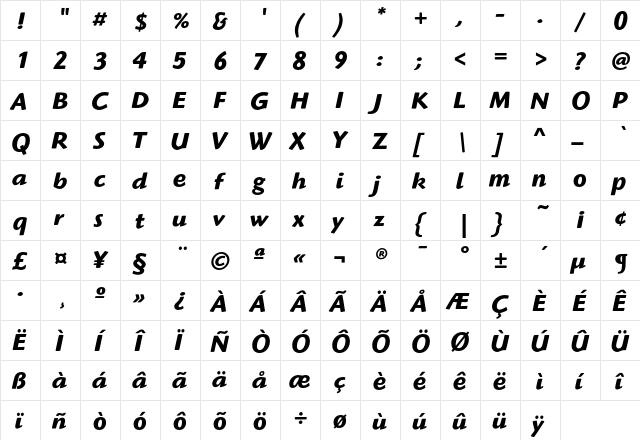
HighlanderEF BoldItalic Font Preview
Design Context for HighlanderEF Typeface
HighlanderEF offers clean, dependable letterforms without strong stylistic allegiance, making it a practical choice for designers who need flexibility. The dynamic lean of this cut emphasises speed and emphasis in any layout. The heavy weight commands attention and anchors typographic hierarchies.
Pro Tip: Try HighlanderEF for annotation and caption copy alongside an upright companion — the contrast in angle creates a dynamic but ordered typographic system.